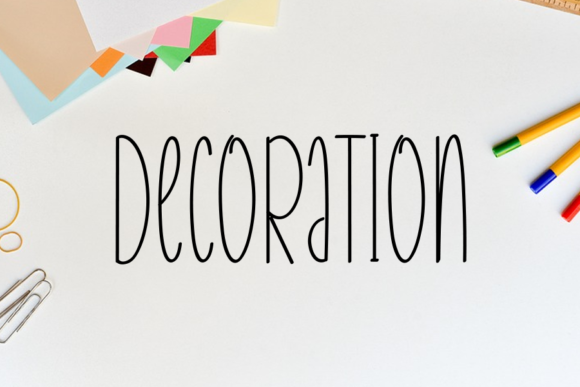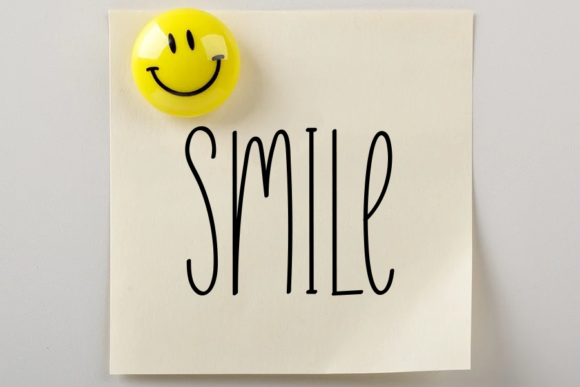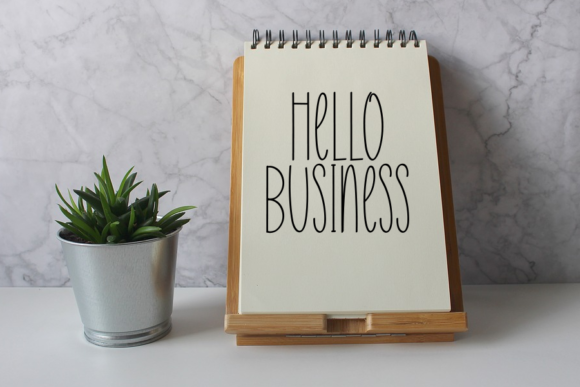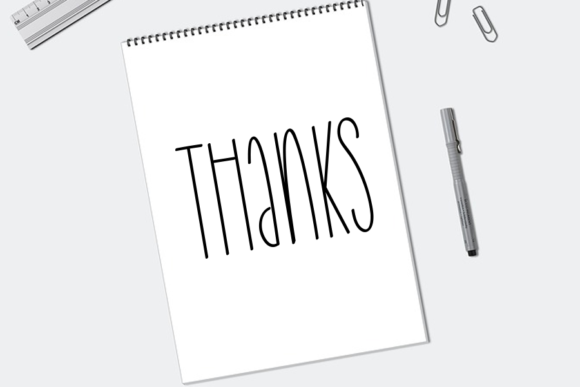
Little Flower Font
About Little Flower Font
Little Flower is a simple, trendy, and adaptable handwritten font. Its informal style and casual vibe will make this font a go-to choice for each of the creations that require a relaxed touch.